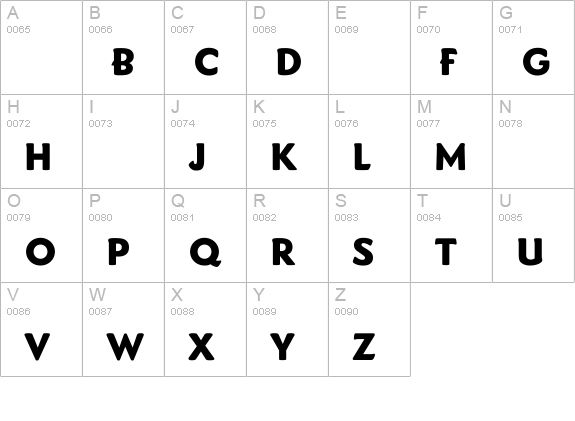
DundeeExBold font is a bold and striking typeface that exudes confidence and professionalism. Its thick, robust strokes make a strong visual impact, perfect for headlines, titles, and attention-grabbing design projects. The sharp edges and clean lines of DundeeExBold font give it a modern and contemporary feel, while still maintaining a touch of classic elegance. This versatile font is free to download at FontsMarket.com, making it accessible to designers, creatives, and anyone looking to elevate their projects with a bold and impactful typeface. Whether you're working on branding, marketing materials, posters, or web design, DundeeExBold font is sure to make a statement and leave a lasting impression. Download it today and add a touch of bold sophistication to your next project.